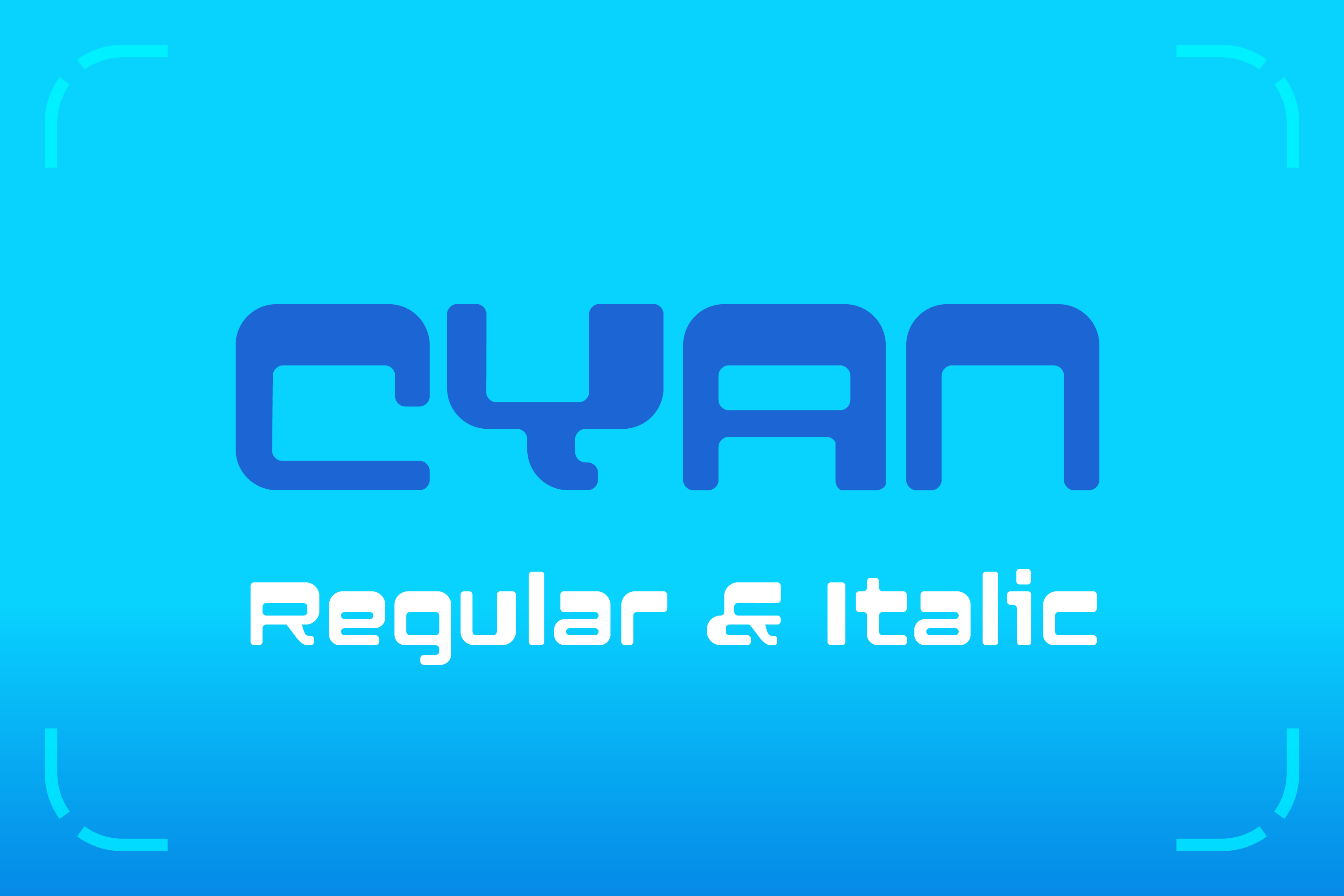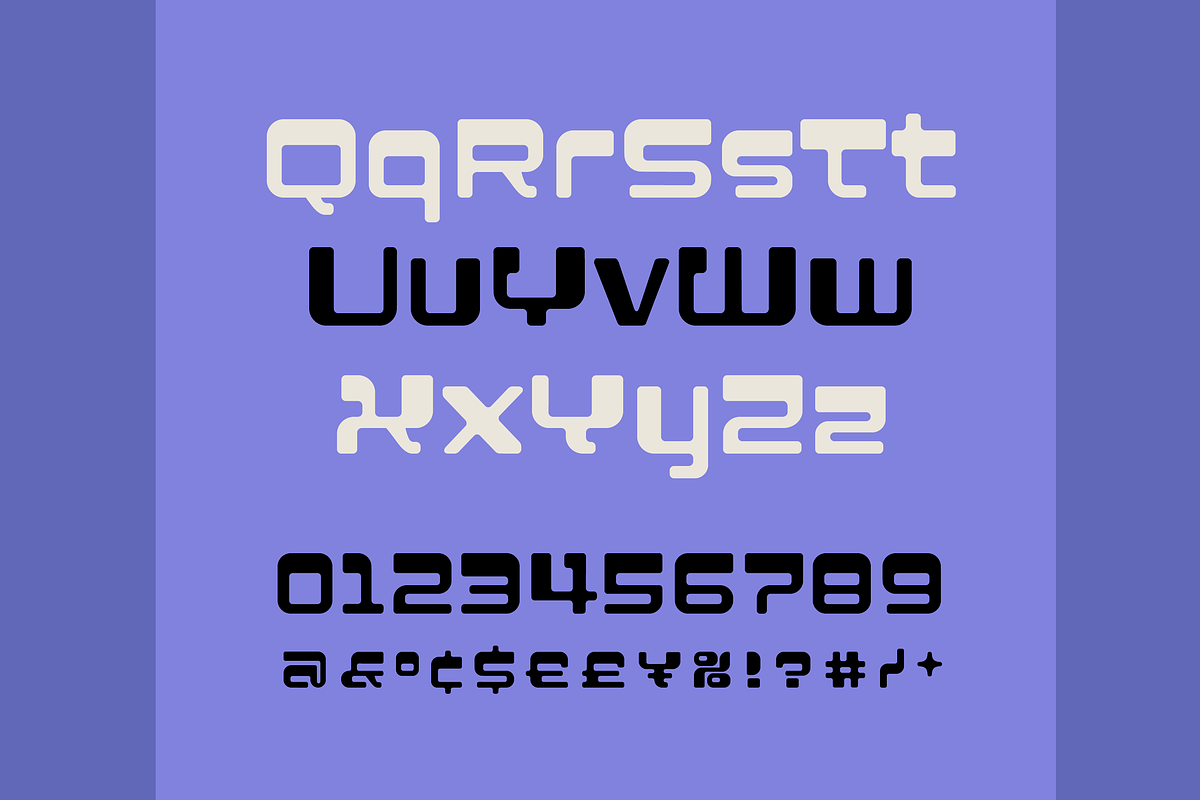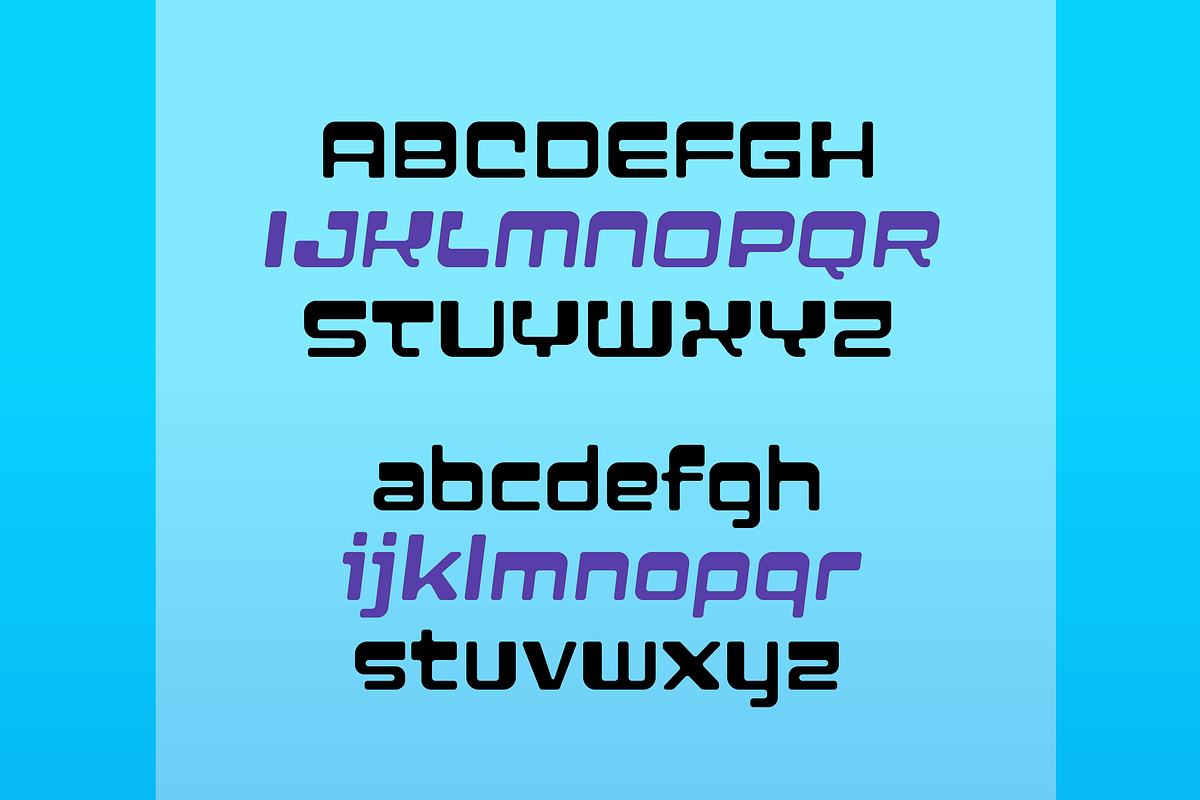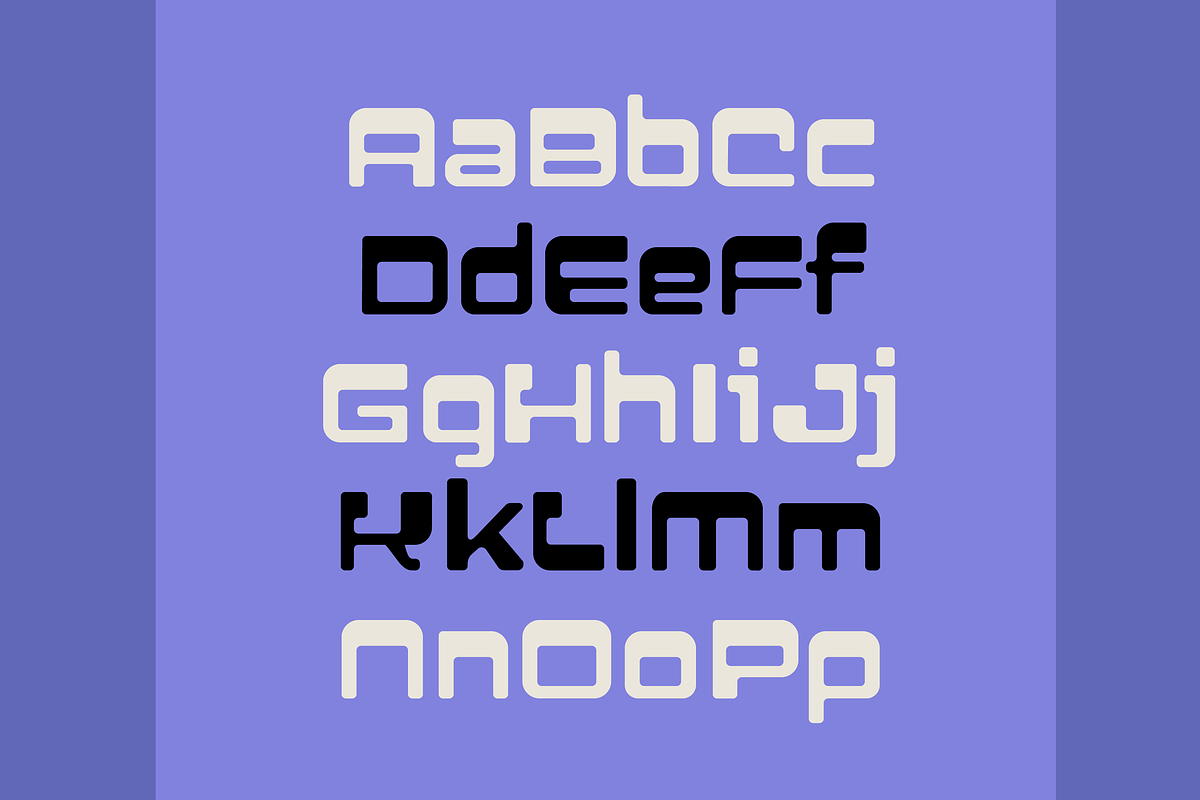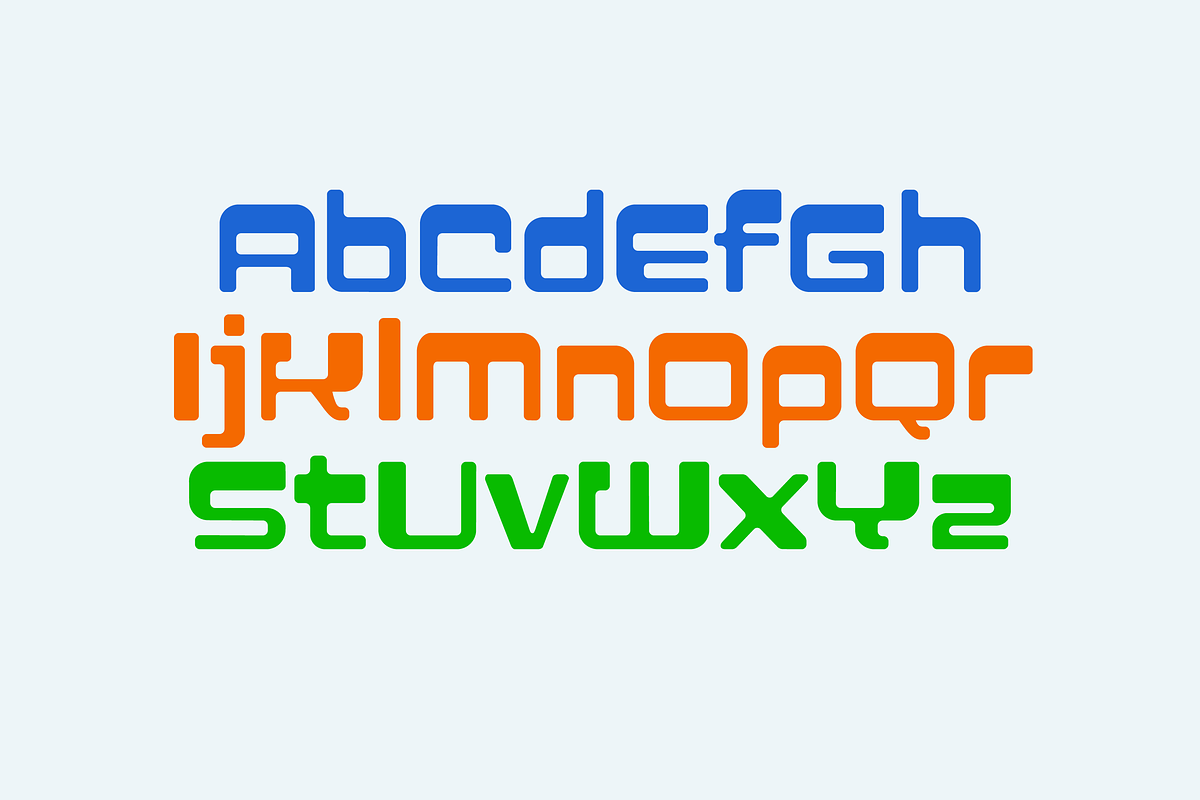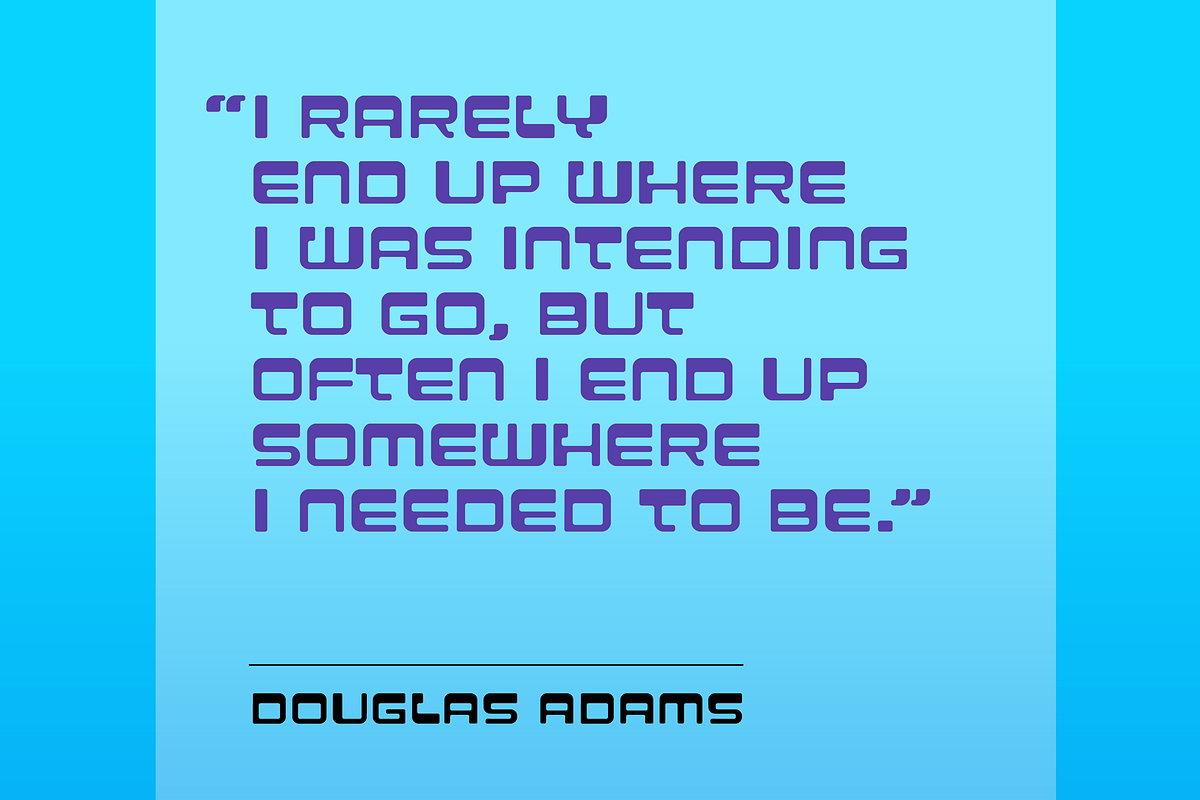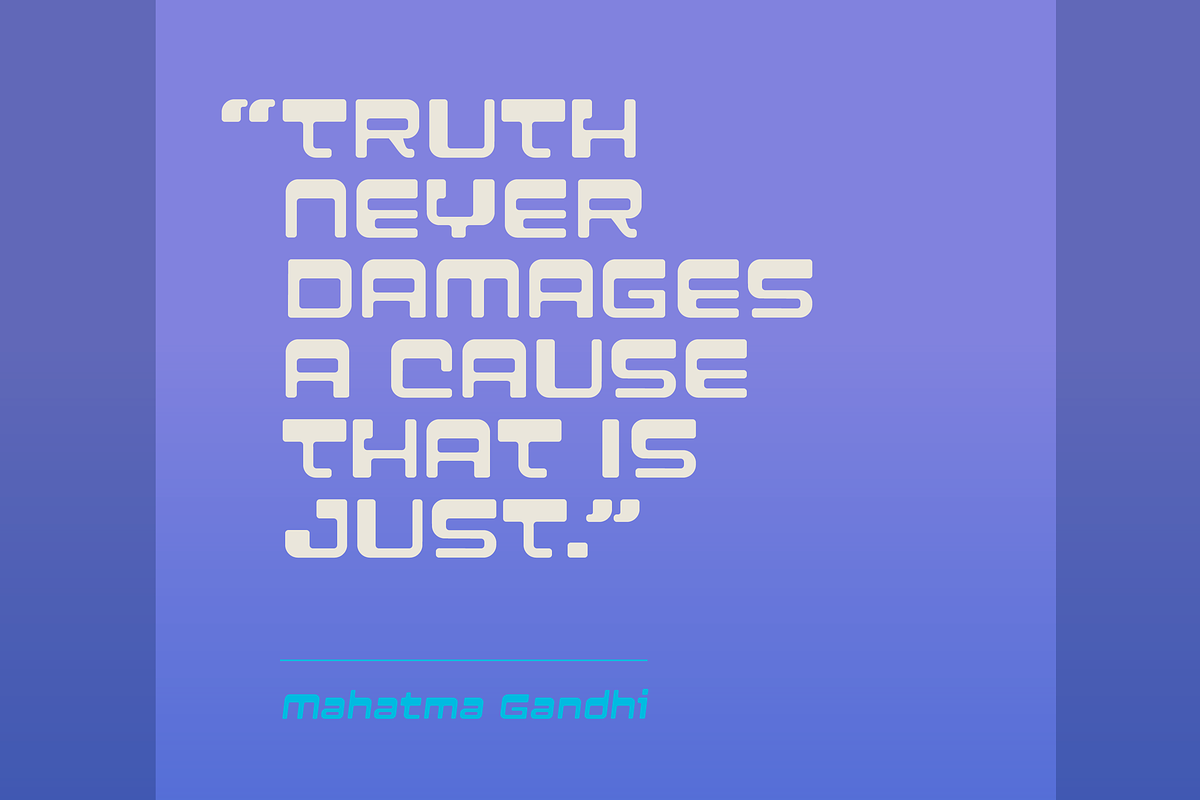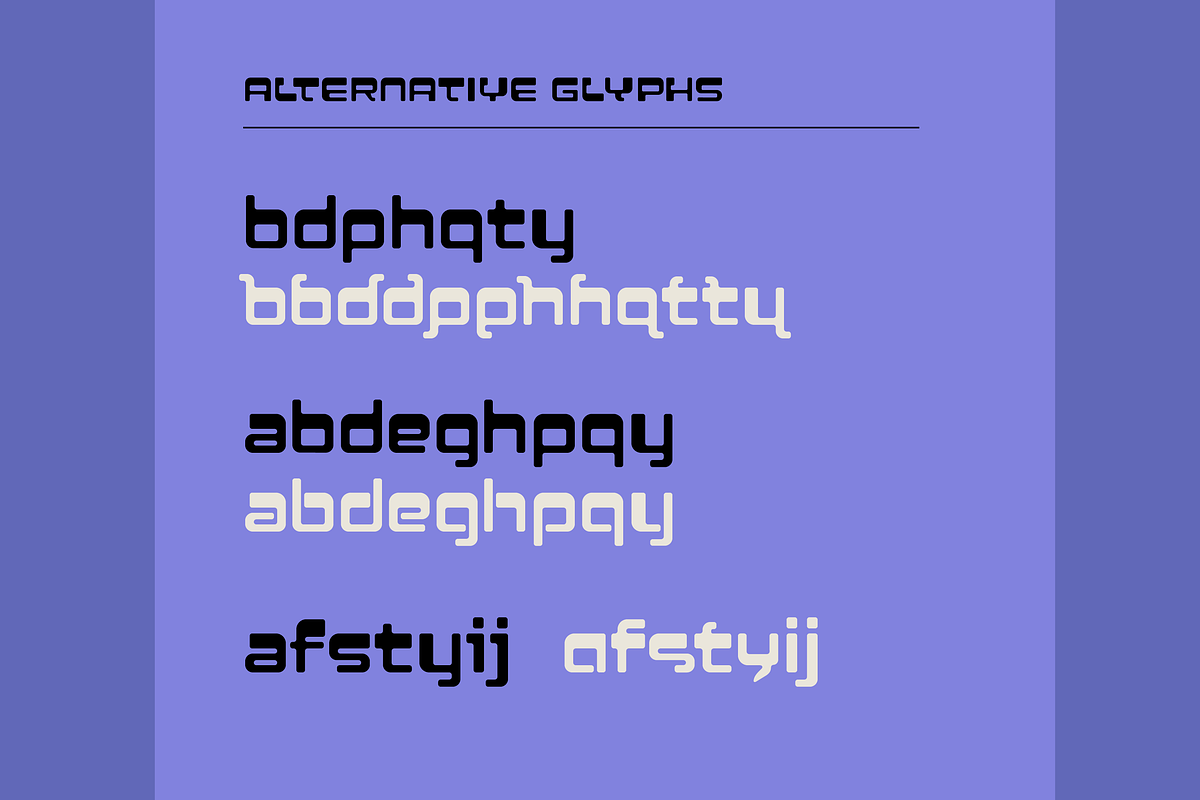
Cyan Fun Futuristic Font (2 fonts)
SB Cyan is a fun, futuristic font with a comic twist.
- Two fonts: Regular and Italic.
- Alternative glyphs for many characters.